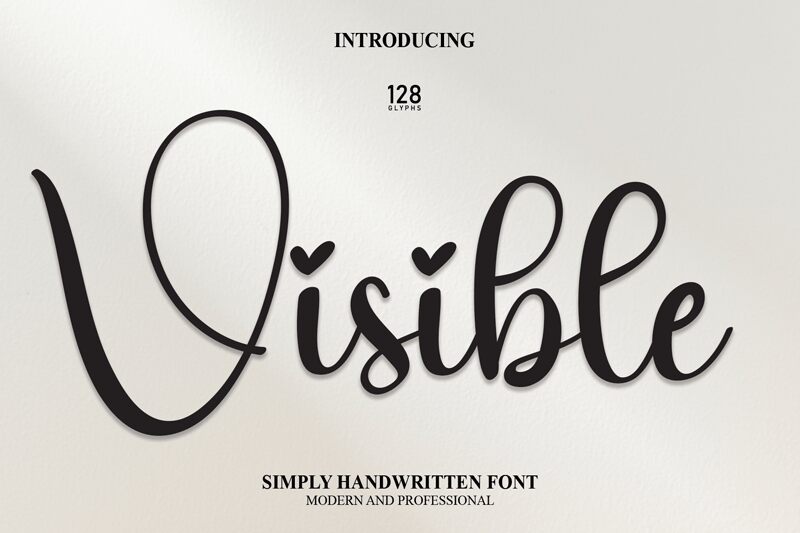
Visible
The Visible font by Scratchones is an exquisite calligraphy typeface with a semi-light weight, perfect for adding elegance and charm to any project.
Its graceful curves and stylish letterforms make it ideal for creating romantic Valentine's Day cards, heartfelt love letters, or feminine branding materials. With its delicate strokes and fluid design, Visible brings a touch of sophistication to wedding invitations, beauty blogs, fashion magazines, or luxury product packaging.
Let this enchanting font transform your creations into works of art that captivate hearts and leave a lasting impression.